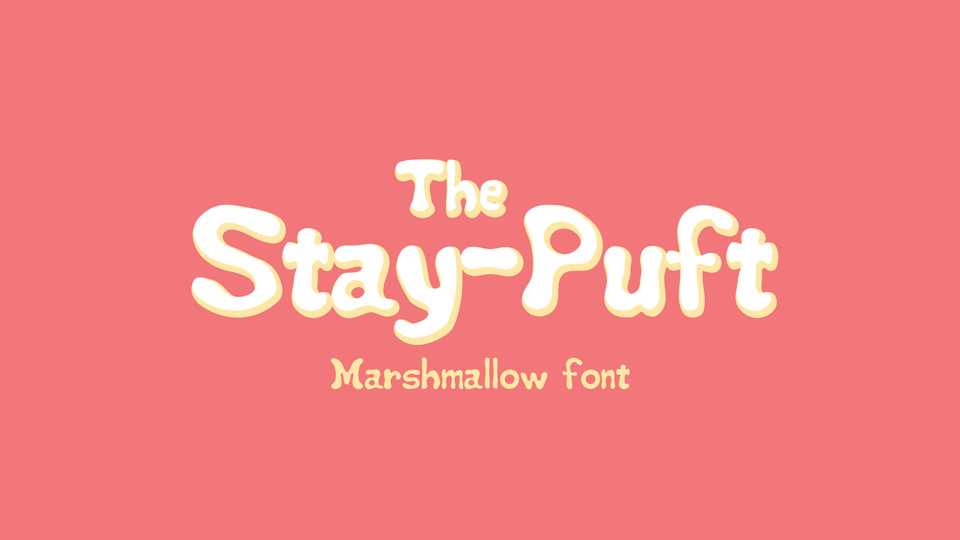
Download Stay Puft font, an all rounded funny hand drawn typeface with a sort of marshmallowy look. It’s kind of cute, and might be good for frivolous stuff such as birthday cards.
Designer: John Stracke